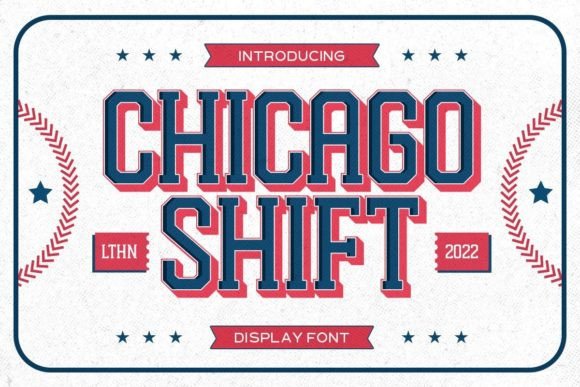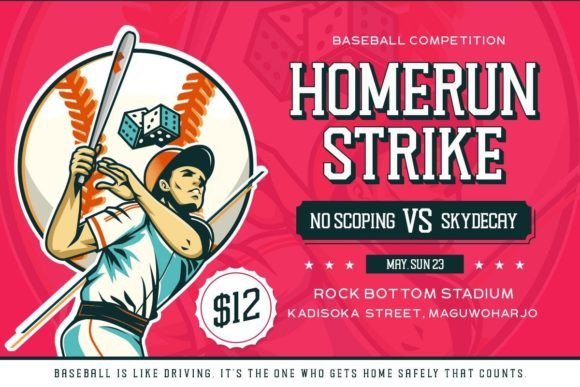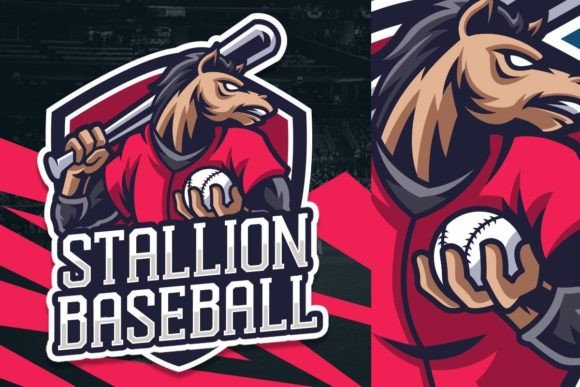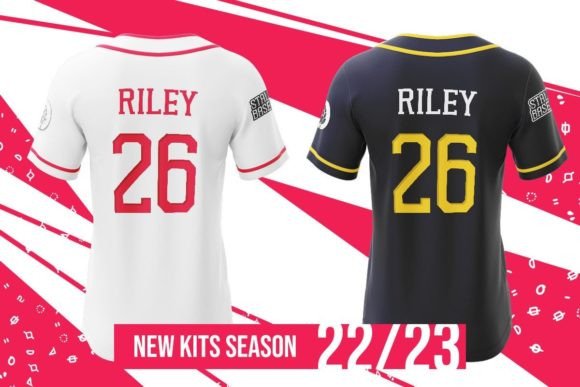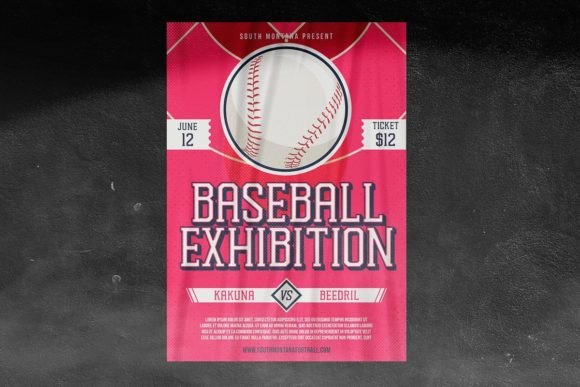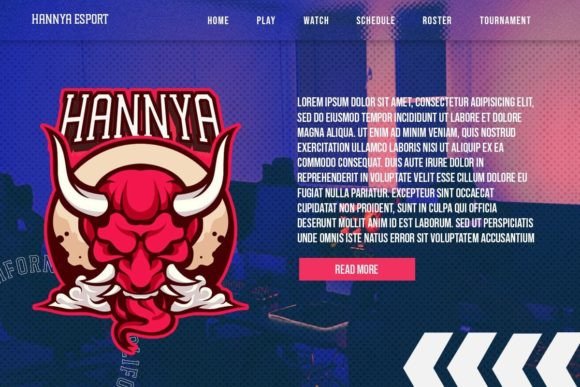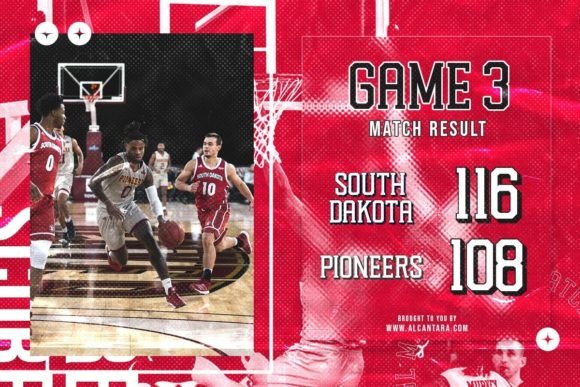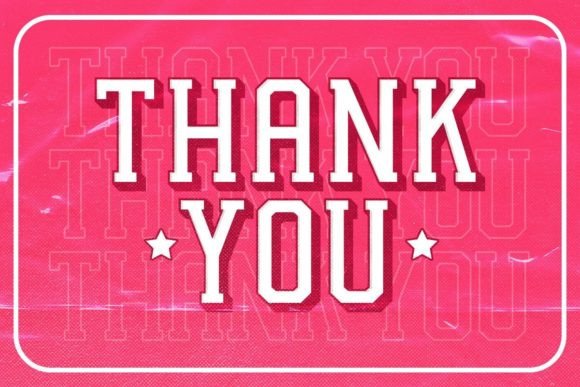
Chicago Shift is a serif font specialized for sports themes. Very suitable for a headline, logotype, apparel, invitation, branding, packaging, advertising, etc. It goes well with old school/vintage as well as modern themes.
Chicago Shift Font